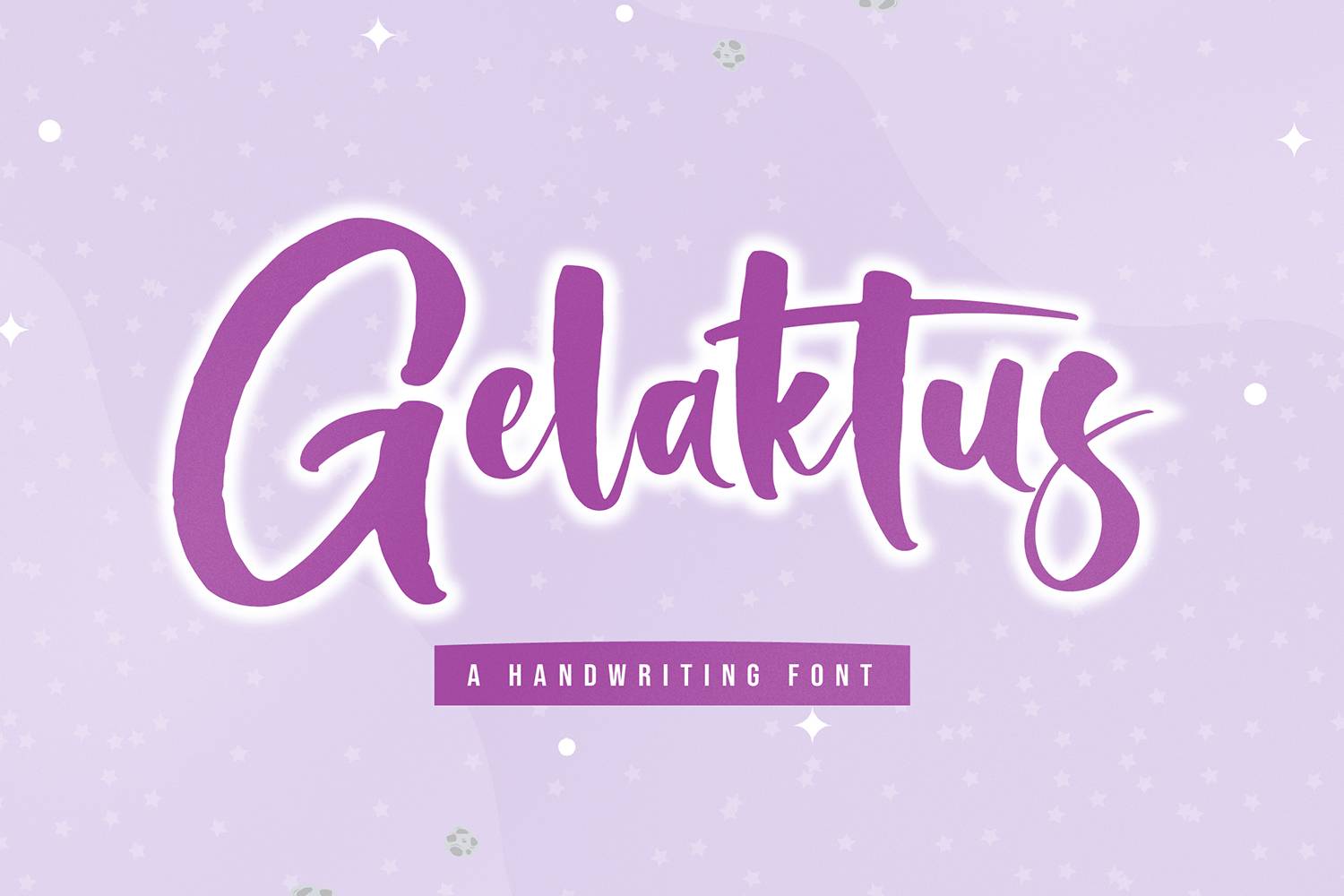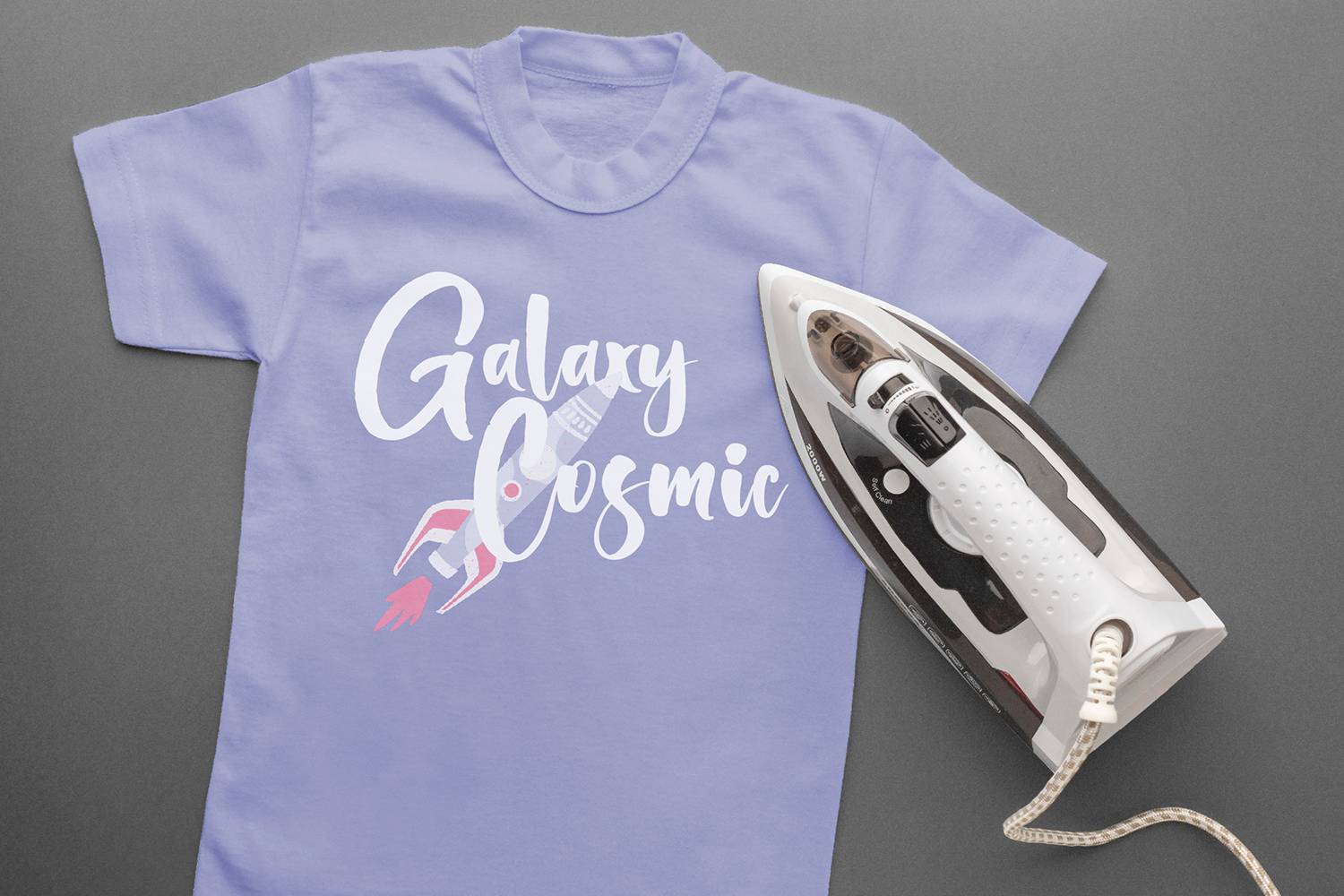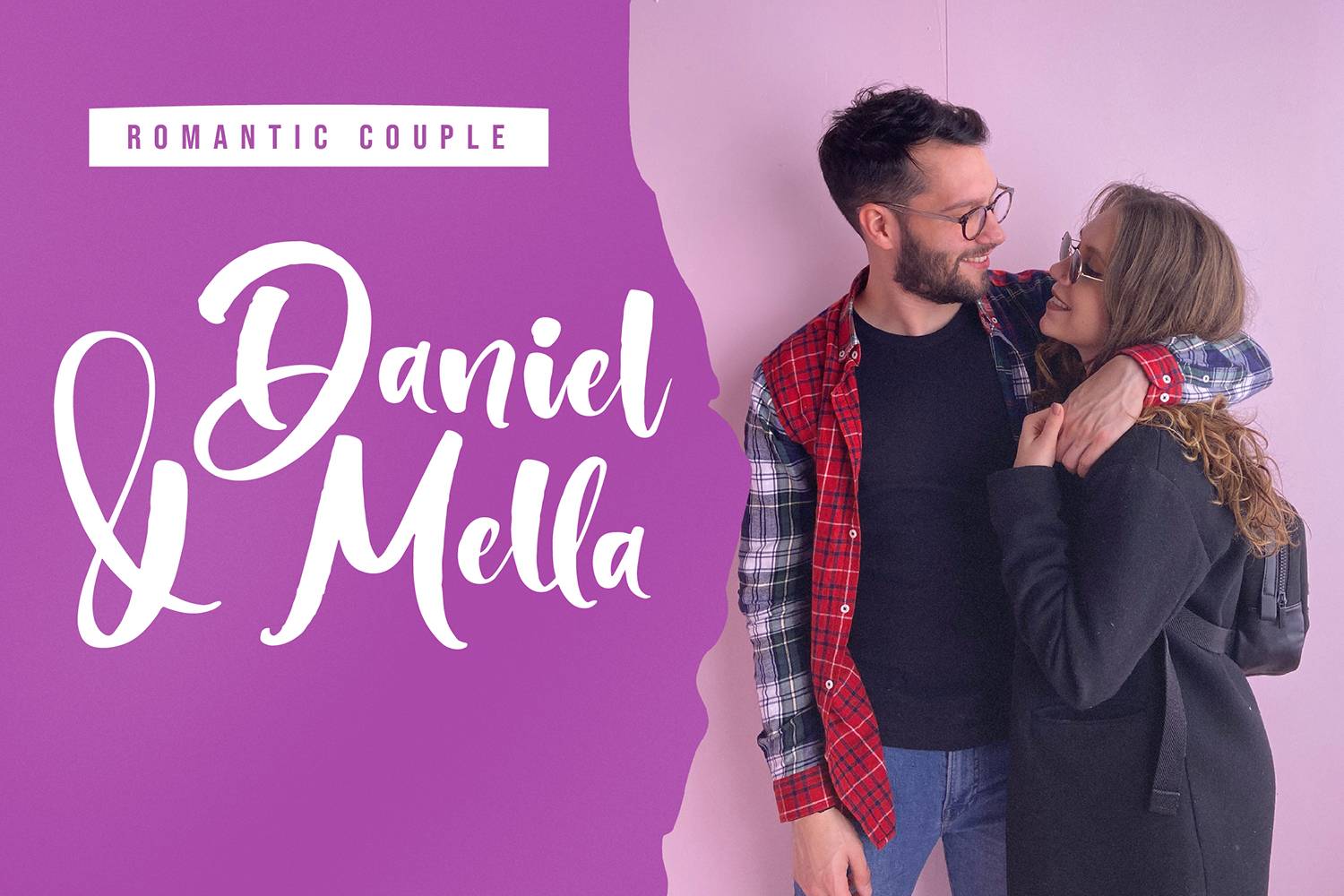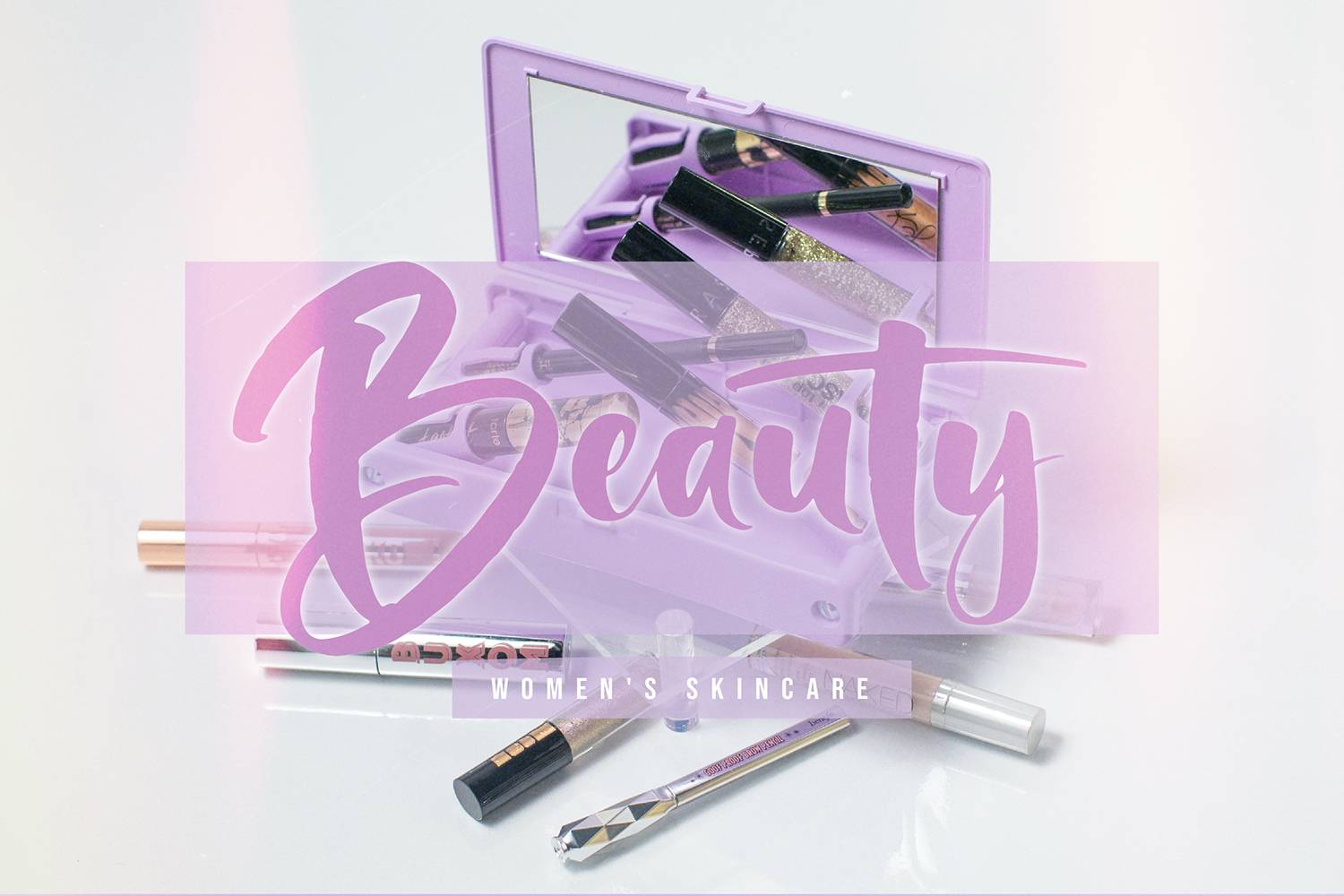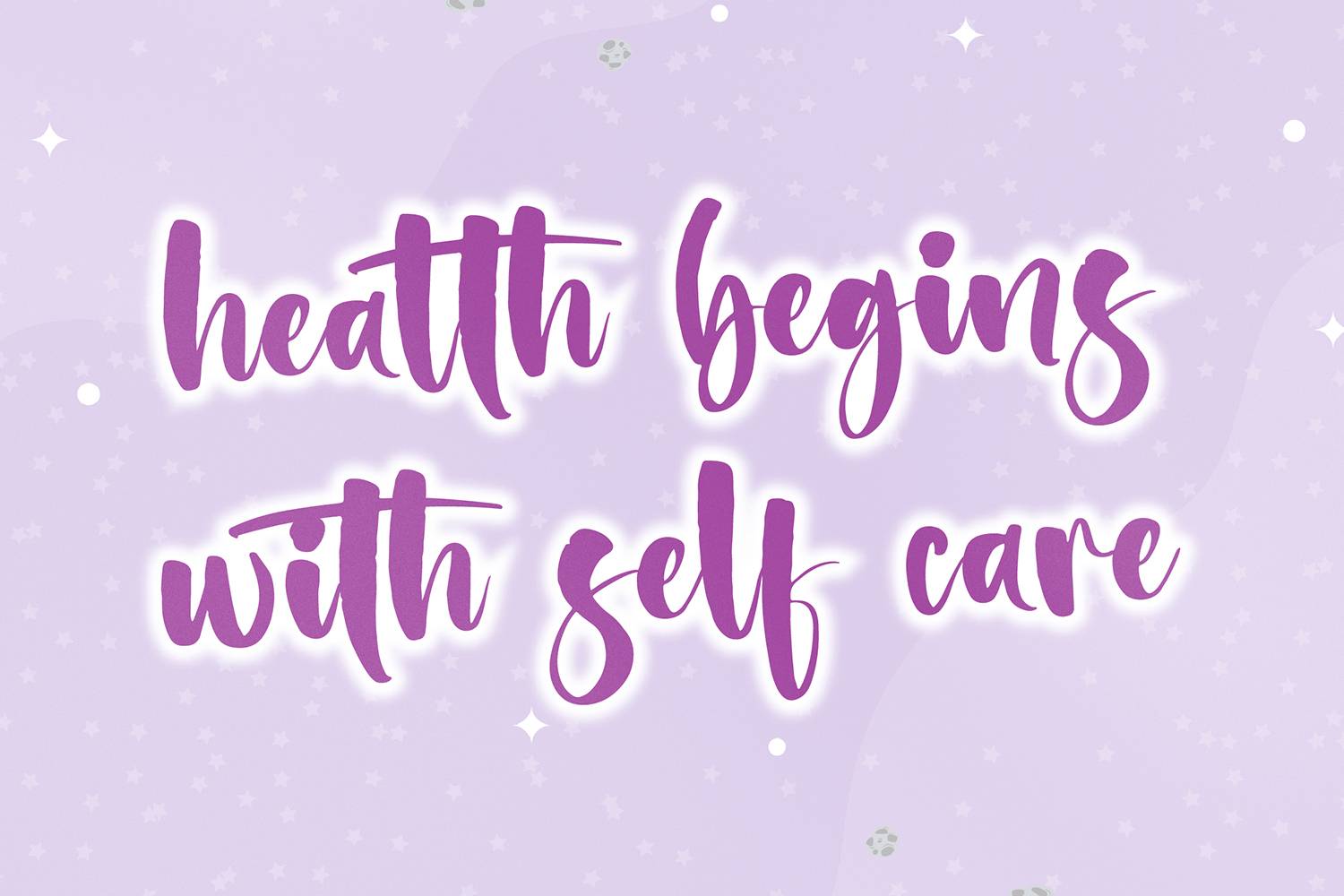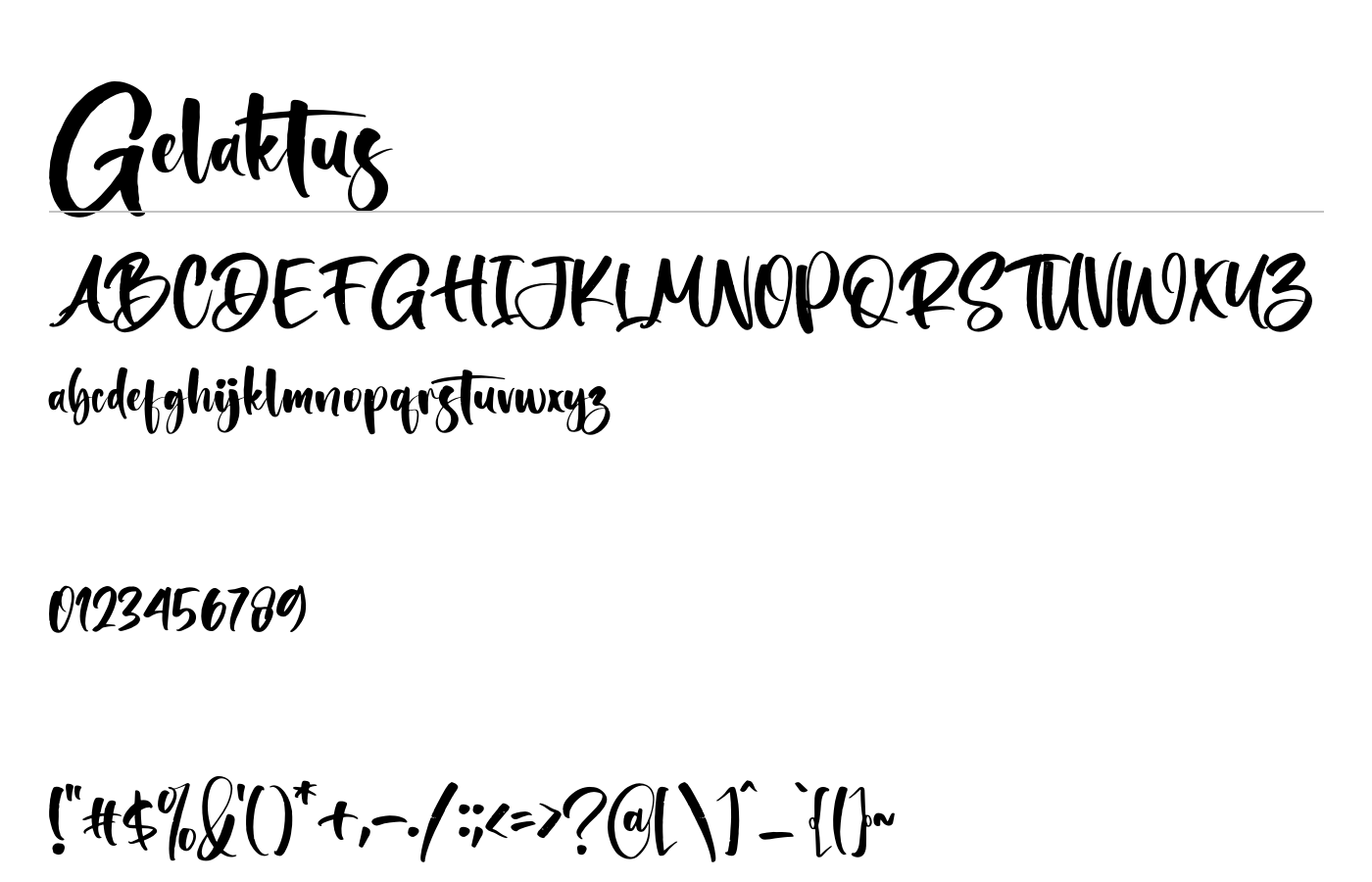
Gelaktus is an energetic and bold script font that captures a hand-brushed, artistic feel with its strong, fluid strokes and lively letterforms. Its casual yet confident style makes it perfect for creative branding, eye-catching headlines, and playful packaging where a modern, friendly personality is desired. This font shines in designs aiming for a handcrafted touch that stands out with charm and expressiveness.
Gelaktus Font